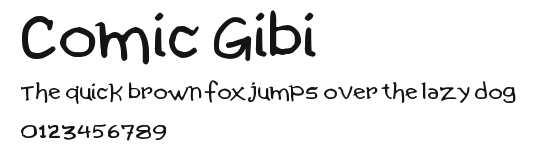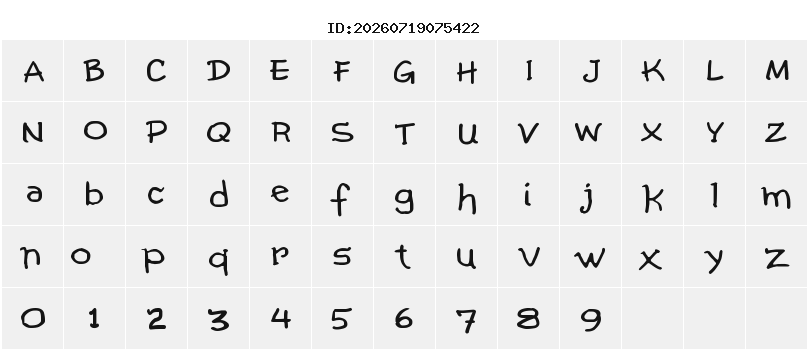
• Font Name: Comic Gibi
• Full Font Name: Comic Gibi
About Comic Gibi.ttf
Comic Gibi.ttf is a modern, elegant sans-serif font designed for ultimate readability and visual harmony. Perfect for branding, headlines, web design, and print materials.